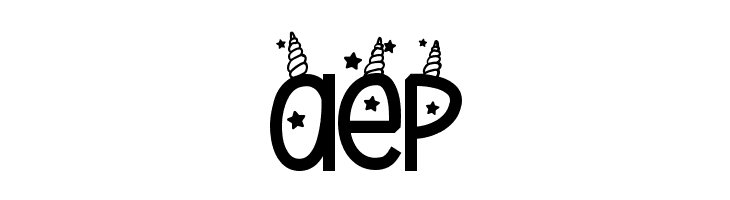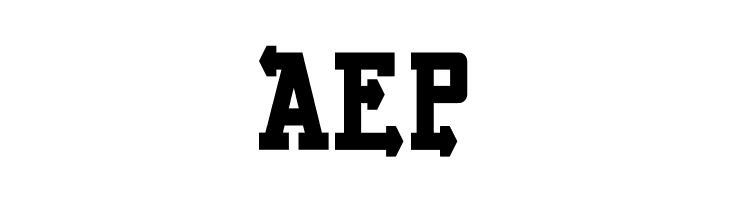
( Fonts by Jamie Collins )
A hand-drawn, organic font with wavy, irregular outlines.
( Fonts by Ditya Ananto )
A jagged, thorn-like font with a rugged, edgy appearance.
( Fonts by imagex )
A bold, decorative font with vintage Western-inspired elements and arrow-like serifs.
( Fonts by DM Letter31 )
A whimsical font with unicorn horn and star accents, ideal for magical themes.
( Fonts by Doni Dorra )
A whimsical, unicorn-themed decorative font with stars and hearts.
( Fonts by Maulana Creative )
A decorative font with bold, patterned letters and whimsical designs.
( Fonts by Hoperative )
A playful, star-adorned font with bold, rounded characters.
( Fonts by Hoperative )
A whimsical script font with star embellishments and flowing, playful letters.